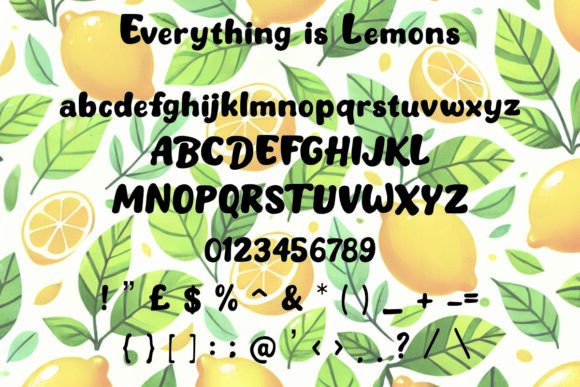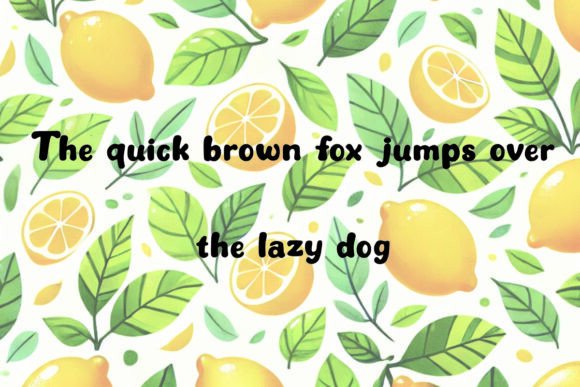
Everything is Lemons Font: Add a Squeeze of Freshness to Your Designs
Are you tired of using the same old fonts in your designs? Look no further than Everything is Lemons, a delightful handwritten sans serif font that’s sure to add a touch of casual charm to your creative projects. With its perfect balance of playful and clean, this font is ideal for designers and crafters looking to bring a bit of personality and warmth to their work.
The Perfect Blend of Playful and Clean
Everything is Lemons font is a unique and refreshing addition to any designer’s toolkit. Its handwritten sans serif style gives it a natural, hand-drawn feel that’s both approachable and visually appealing. The font’s clean lines and simple shapes make it easy to read and versatile enough to use in a variety of contexts, from branding and packaging to social media graphics and blog posts.
What Makes Everything is Lemons Font So Special?
- Handwritten with love: Each letter has been carefully crafted by hand, giving the font a warm and personal feel that’s hard to replicate with generic fonts.
- Perfect balance of playful and clean: Everything is Lemons strikes the perfect balance between fun and sophistication, making it suitable for a wide range of design projects.
- Highly versatile: Use it for branding, packaging, social media graphics, blog posts, and more – the possibilities are endless!
- Easily readable: The font’s clean lines and simple shapes make it easy to read, even at small sizes.
How to Use Everything is Lemons Font in Your Designs
Whether you’re a seasoned designer or a crafty DIY enthusiast, Everything is Lemons font is easy to use and adaptable to a variety of design projects. Here are a few ideas to get you started:
- Branding and packaging: Use Everything is Lemons to add a touch of personality to your brand’s logo, business cards, and packaging materials.
- Social media graphics: Create eye-catching social media graphics, such as Facebook posts, Instagram stories, and Twitter headers, that showcase your brand’s playful side.
- Blog posts and articles: Add a bit of whimsy to your blog posts and articles with Everything is Lemons, making them more engaging and fun to read.
- DIY projects and crafts: Use Everything is Lemons to add a personal touch to your DIY projects, such as handmade cards, gift tags, and scrapbooking pages.
Tips for Getting the Most Out of Everything is Lemons Font
To make the most of Everything is Lemons font, here are a few tips to keep in mind:
- Experiment with colors: Everything is Lemons font looks great in a variety of colors, so don’t be afraid to experiment and find the perfect hue to match your brand or design.
- Mix and match: Combine Everything is Lemons with other fonts to create a unique and visually appealing typography style.
- Play with sizes: Use Everything is Lemons in different sizes to create visual hierarchy and add emphasis to important text.